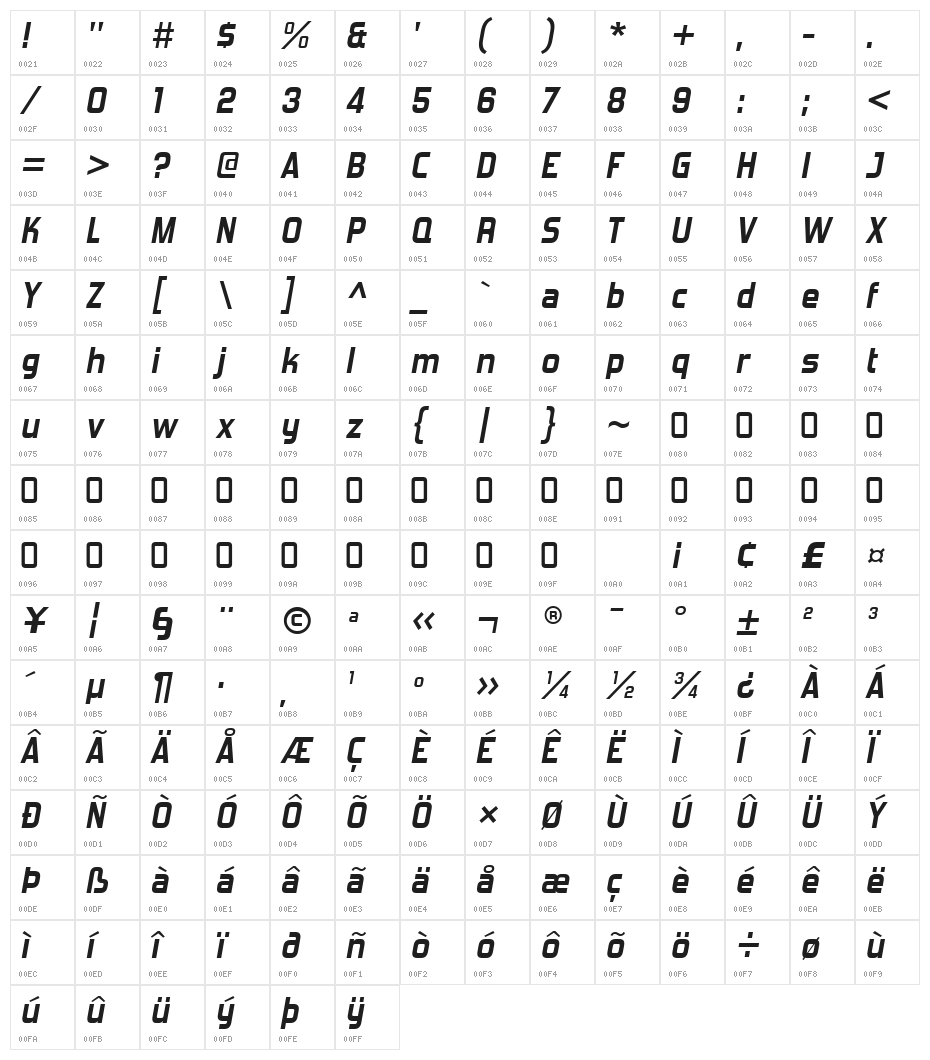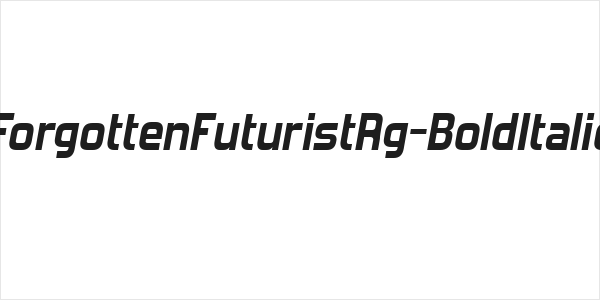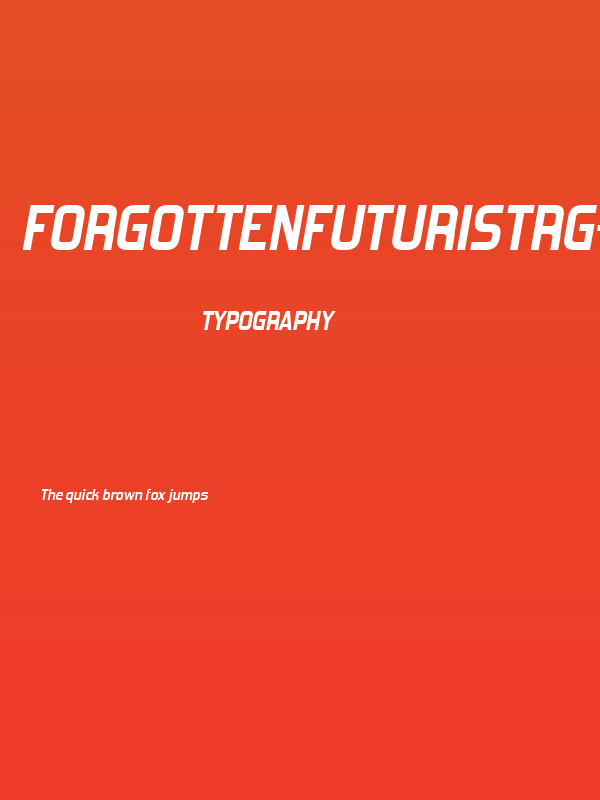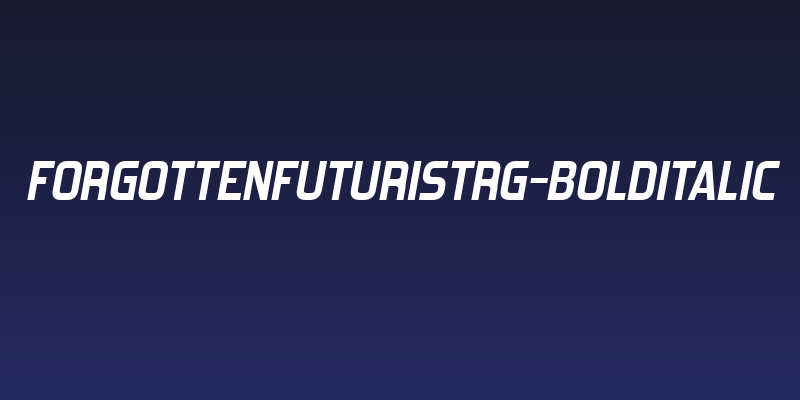
ForgottenFuturistRg-BoldItalic Font
ForgottenFuturistRg-BoldItalic Description
This font features a bold and italic style with a modern, futuristic appearance. The characters are slightly condensed, giving a sleek and streamlined look. The uppercase and lowercase letters maintain a consistent slant, enhancing the italicized effect. The numbers and special characters are designed to match the overall aesthetic, with clean lines and a uniform thickness. The font exhibits medium contrast, with strokes that are neither too thin nor too thick, ensuring readability while maintaining a distinct style. Its geometric forms and angular edges contribute to a contemporary and dynamic feel, making it suitable for various creative applications.
| Use Case | Headlines, Logos, Digital Interfaces |
| Proposed Projects | Ideal for technology branding, sci-fi themed designs, modern advertising, and digital interfaces. |